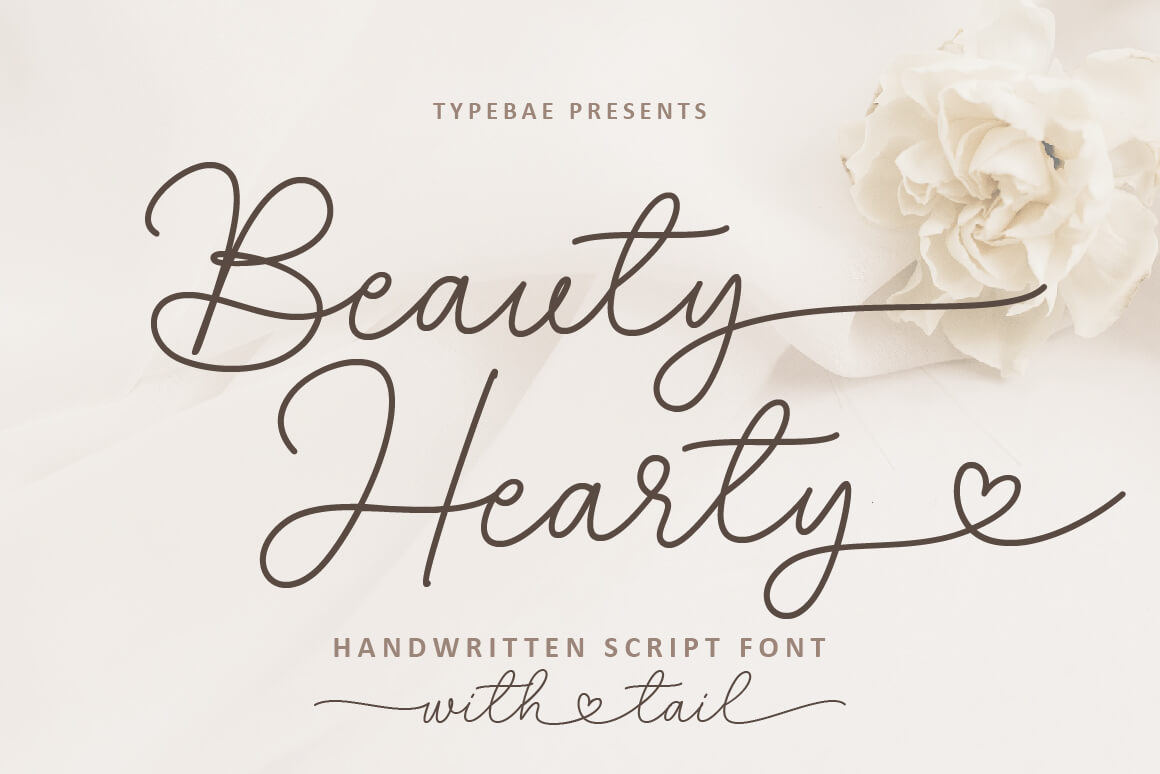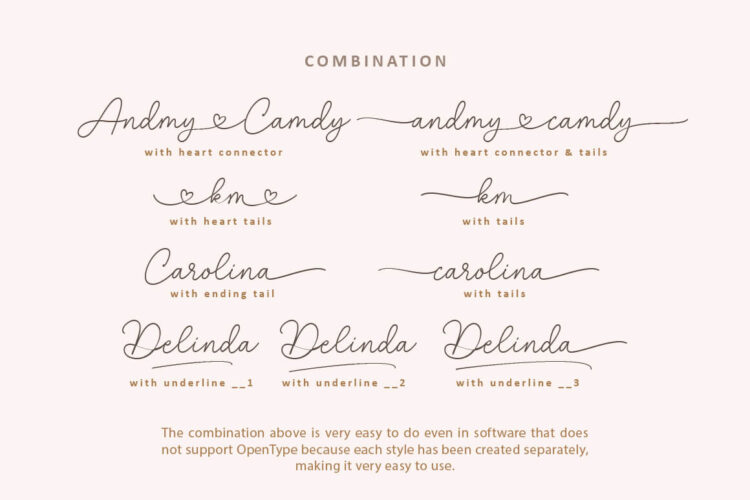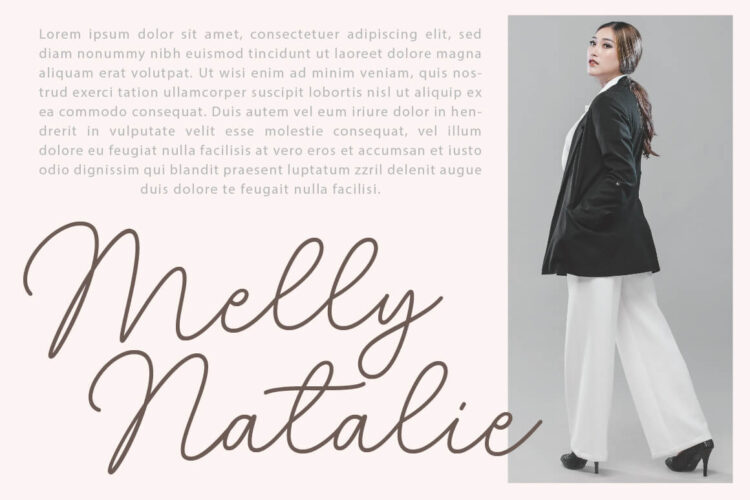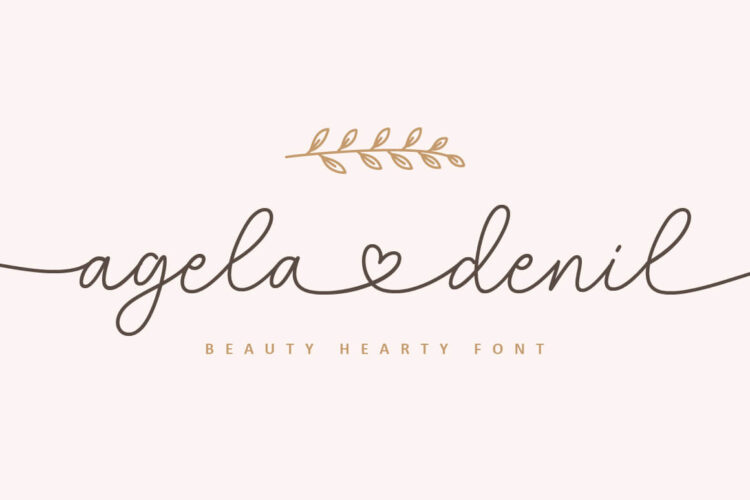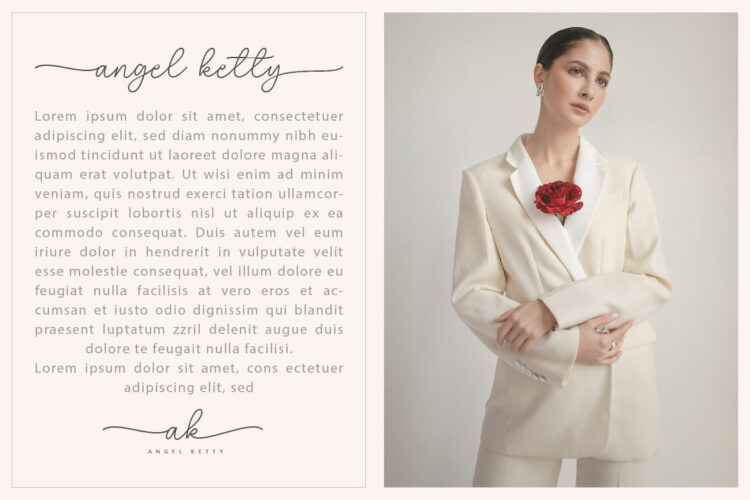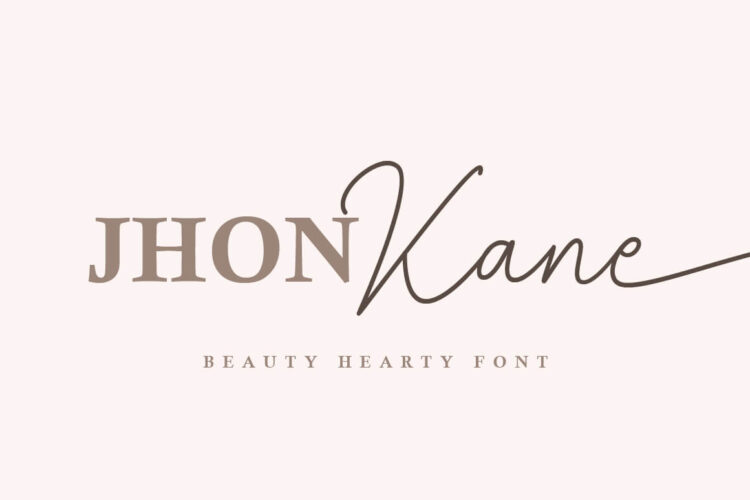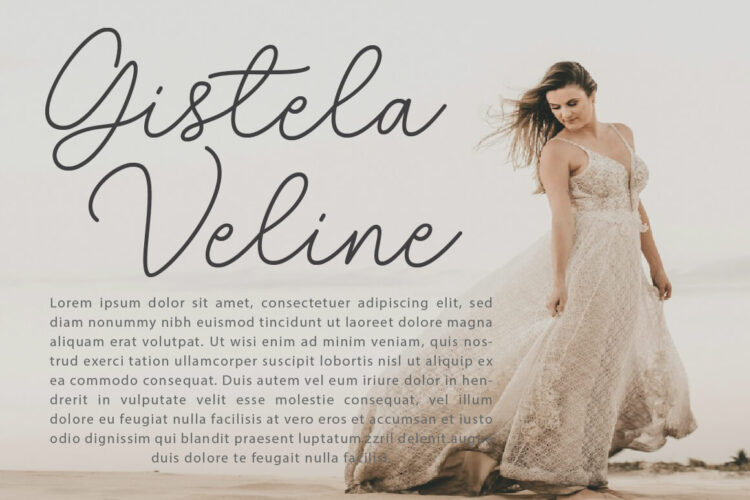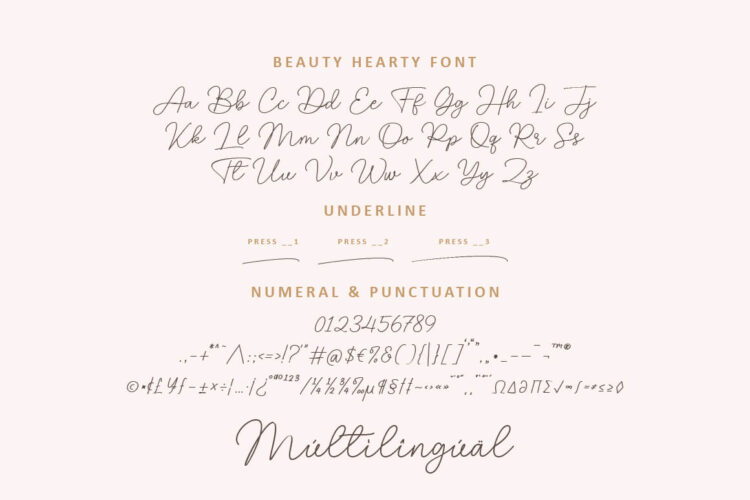
Heart Swashes Script Font
Beauty Hearty Font is an exquisite and delicate handwritten script font that exudes elegance. It features captivating letter alternatives and enchanting tails at the beginning and end of each stroke. The font’s distinctive attribute lies in its heart-shaped connecting tail, which adds a touch of romance and charm. With its graceful design, Beauty Hearty Font is sure to captivate and inspire. To use heart connector, beginning and ending tails, you don’t need to use software that supports opentype, because we have made it separately so it’s very easy to use.
Feature: Ligature, Multilingual and PUA encoded.
Beauty Hearty – Heart Swashes Script Font